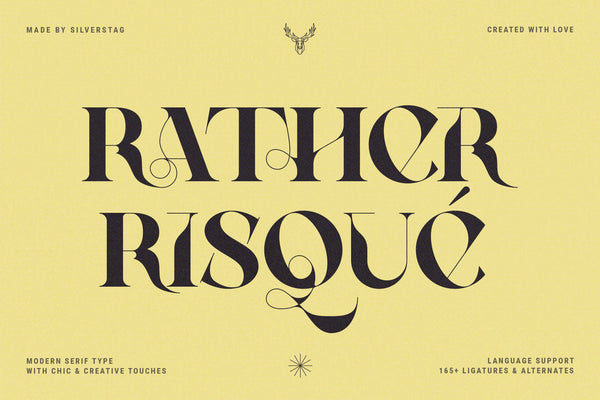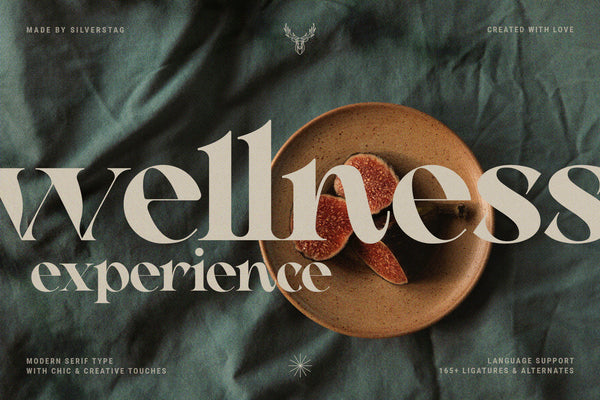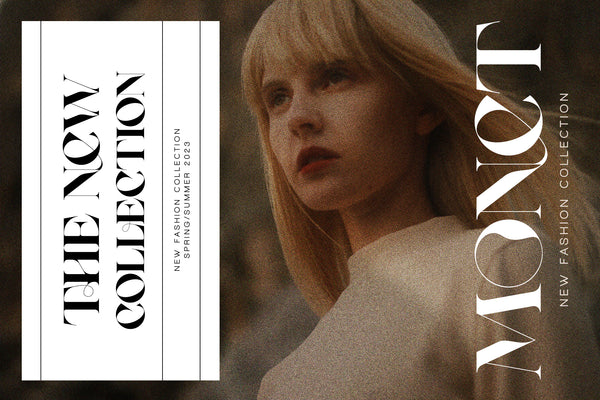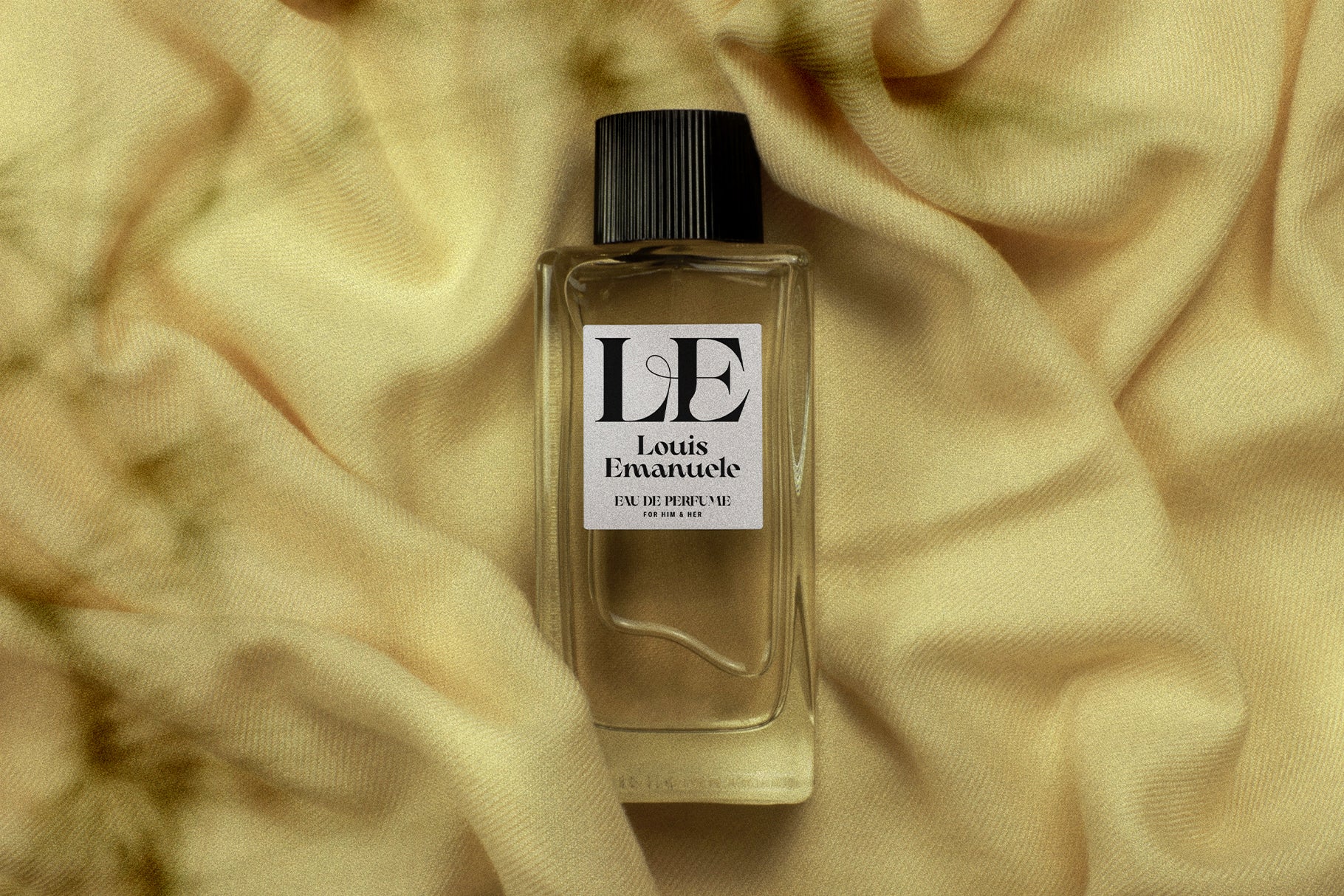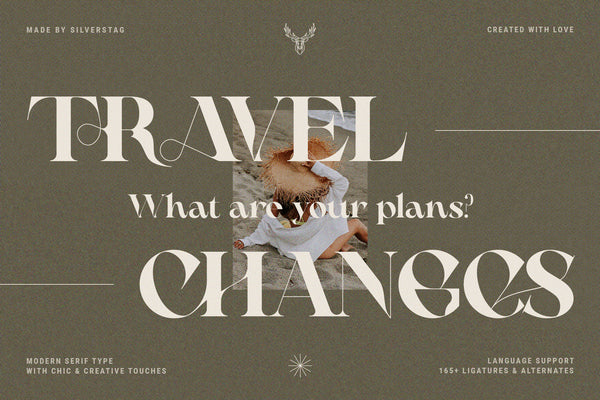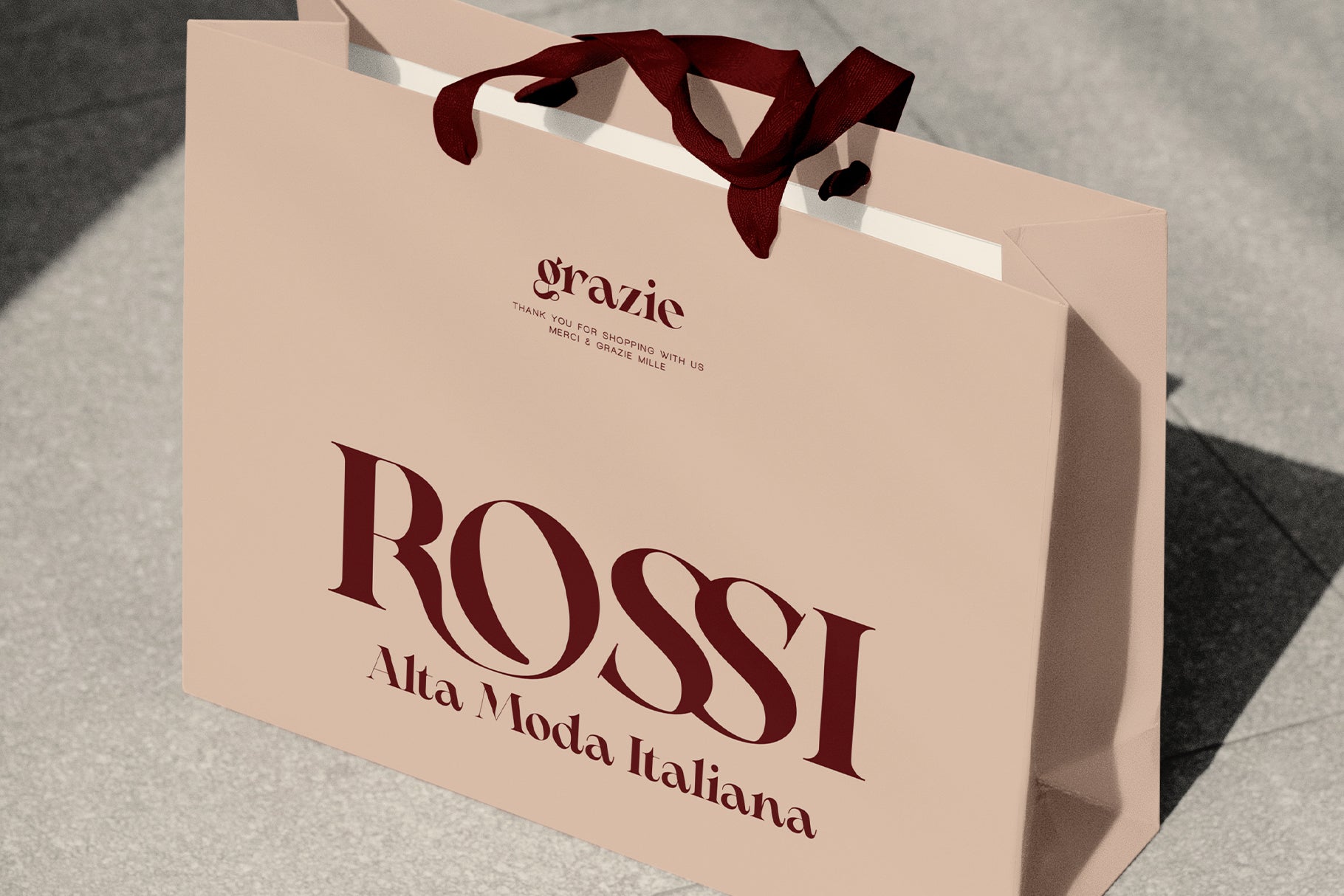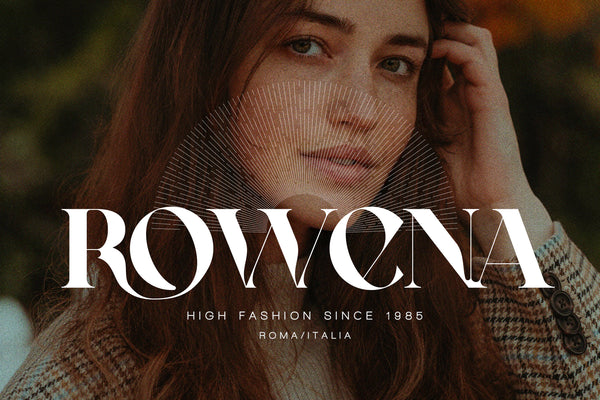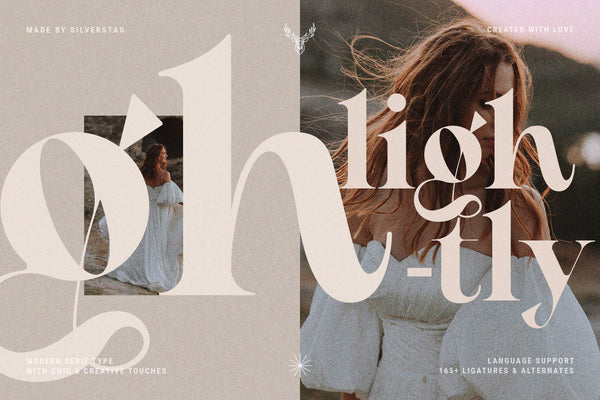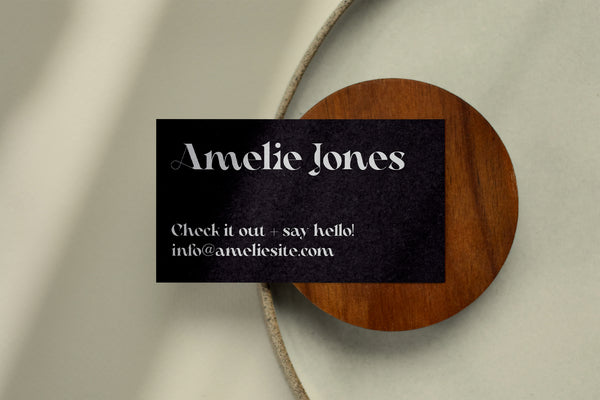
RATHER RISQUE - Ligature Serif Font
Rather Risqué is a bold yet refined contrast serif typeface designed to bring high-fashion sophistication to your creative projects. Inspired by classic editorial fonts and infused with a modern twist, Rather Risqué features stunning contrast between bold strokes and delicate thin touches, creating a truly unforgettable visual presence.
Packed with over 165 unique ligatures and alternates across both uppercase and lowercase letters, this typeface offers endless opportunities for customization and elegant typographic expression. Whether you’re designing sleek branding, eye-catching logos, chic posters, stylish editorial layouts, or modern websites, Rather Risqué ensures your work looks bold, luxurious, and full of character.
If you’re looking for a modern serif that feels editorial, expressive, and fashion-forward, Rather Risqué will elevate your typography with a distinct, daring edge.
Monet new fashion collection mockup in Rather Risque ligature serif font with a portrait
Travel changes specimen in Rather Risque ligature serif font over olive with an inset photo
Rowena high fashion specimen in Rather Risque ligature serif font over a portrait
Amelie Jones business card mockup in Rather Risque ligature serif font on a wooden dish
Equales new fashion icons magazine mockup in Rather Risque ligature serif font with a Dalmatian
Hughes Miracles restaurant window mockup in Rather Risque ligature serif font
Rome Fashion Week name showcase in Rather Risque ligature serif font over a black-and-white portrait
The new reality specimen in Rather Risque ligature serif font over taupe with leaf shadows
Feel the fiesta specimen in Rather Risque ligature serif font over a party photo
Choose the life of your dreams specimen in Rather Risque ligature serif font over a reclining figure
Wellness experience specimen in Rather Risque ligature serif font over a bowl of figs
Louis Emanuele perfume bottle mockup in Rather Risque ligature serif font on yellow fabric
Rossi Alta Moda Italiana shopping bag mockup in Rather Risque ligature serif font
gh and lightly glyph showcase in Rather Risque ligature serif font over women in white
Oscar Wilde heart-made-to-be-broken quote in Rather Risque ligature serif font over taupe
Jeffrey King stage access lanyard badge mockup in Rather Risque ligature serif font
Retronic Apparel clothing specimen in Rather Risque ligature serif font over a portrait
Large FR glyph showcase in Rather Risque ligature serif font with a swash ligature
Flowers butterflies art and romance specimen in Rather Risque ligature serif font with botanical art
Virginia Woolf Orlando quote in Rather Risque ligature serif font on greige with inset photos